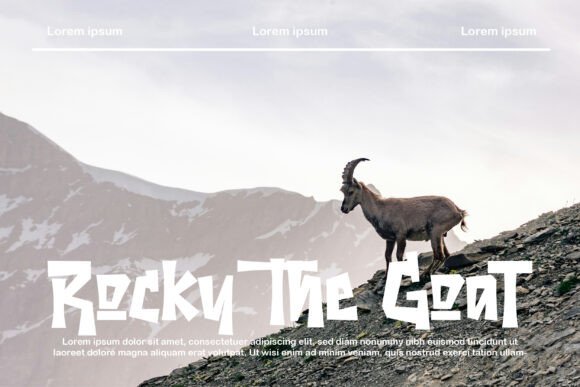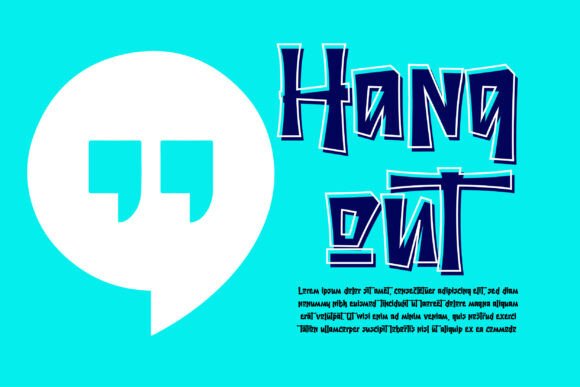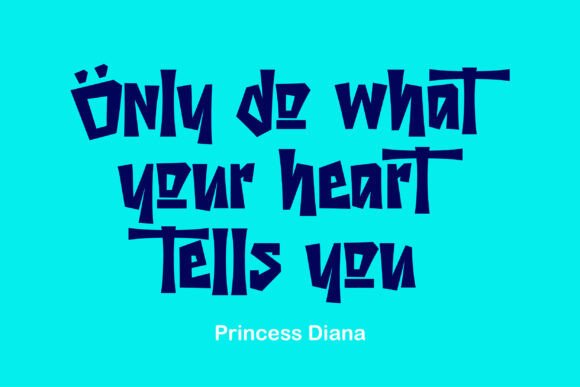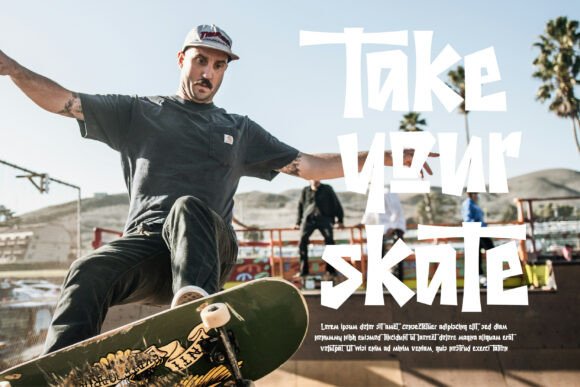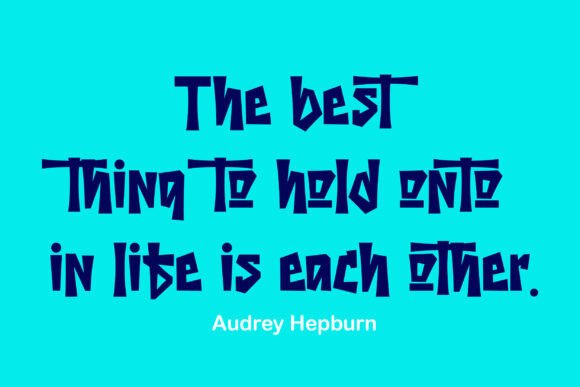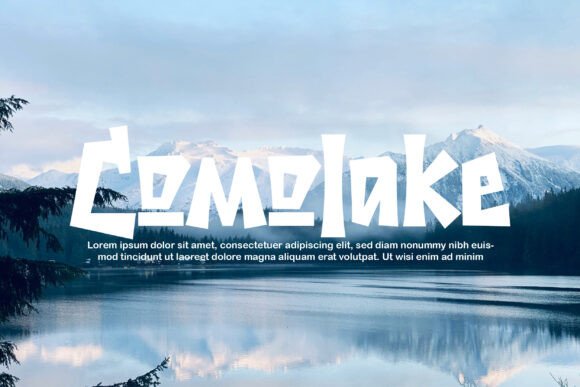
Introducing Gustavo: The Daringly Distinctive Graffiti Display Font
In the world of typography, few fonts have made a statement as bold as Gustavo. This graffiti display font is not just a collection of characters; it’s an attitude, a vibe, a way to transform any design project into a remarkable urban masterpiece. Gustavo is adept at crafting bold, unique designs that capture the essence of street art, making it a go-to choice for designers looking to add a touch of rebellious energy and street-smart sophistication to their work.
The Charisma of Gustavo
The charismatic characters of Gustavo emanate a refreshing blend of rebellious energy and street-smart sophistication. Each letter is carefully crafted to exude a sense of confidence and boldness, making it perfect for eye-catching posters, striking logos, and any other design project that requires a statement piece. The font’s graffiti-infused style is not just about aesthetics; it’s about attitude. It’s about making a statement that says, “I’m bold, I’m daring, and I’m not afraid to stand out.”
Crafting Unique Designs with Gustavo
Gustavo lends itself beautifully to a wide range of design applications. Whether you’re working on a poster, a logo, or any other project, this font is sure to make it stand out. The key to unlocking Gustavo’s full potential is to experiment with different design elements, such as color, texture, and composition. By combining Gustavo with other design elements, you can create truly unique and eye-catching designs that capture the essence of urban style.
The Benefits of Using Gustavo
So, why choose Gustavo for your design projects? Here are just a few benefits of using this daringly distinctive graffiti display font:
- Bold and Unique Designs: Gustavo is perfect for designers looking to create bold, unique designs that capture the essence of street art.
- Rebellious Energy and Street-Smart Sophistication: The font’s graffiti-infused style emanates a refreshing blend of rebellious energy and street-smart sophistication.
- Versatility: Gustavo lends itself beautifully to a wide range of design applications, from posters and logos to packaging and more.
Tips for Using Gustavo Effectively
To get the most out of Gustavo, here are a few tips to keep in mind:
- Experiment with Different Design Elements: Combine Gustavo with other design elements, such as color, texture, and composition, to create truly unique and eye-catching designs.
- Keep it Simple: Don’t be afraid to keep things simple. Gustavo’s bold style can speak for itself, so don’t feel like you need to add a lot of extra design elements.
- Play with Color: Gustavo looks great in a variety of colors, so don’t be afraid to experiment with different color schemes.
Gustavo is a daringly distinctive graffiti display font that’s perfect for designers looking to add a touch of rebellious energy and street-smart sophistication to their work. With its bold and unique style, versatility, and ease of use, Gustavo is sure to become a go-to choice for designers of all skill levels. Whether you’re working on a poster, a logo, or any other design project, Gustavo is sure to make it stand out. So why wait? Download Gustavo today and start creating your own remarkable urban masterpieces!
Key Features of Gustavo
| Font Style | Graffiti display font |
| Design Elements | Bold, unique characters with a rebellious energy and street-smart sophistication |
| Versatility | Suitable for a wide range of design applications, including posters, logos, and more |
Specification of Gustavo
| Specification | Details |
| Font Family | Gustavo |
| Font Style | Graffiti display font |
| Characters | Bold, unique characters with a rebellious energy and street-smart sophistication |
| Language | English and other languages that support Latin script |